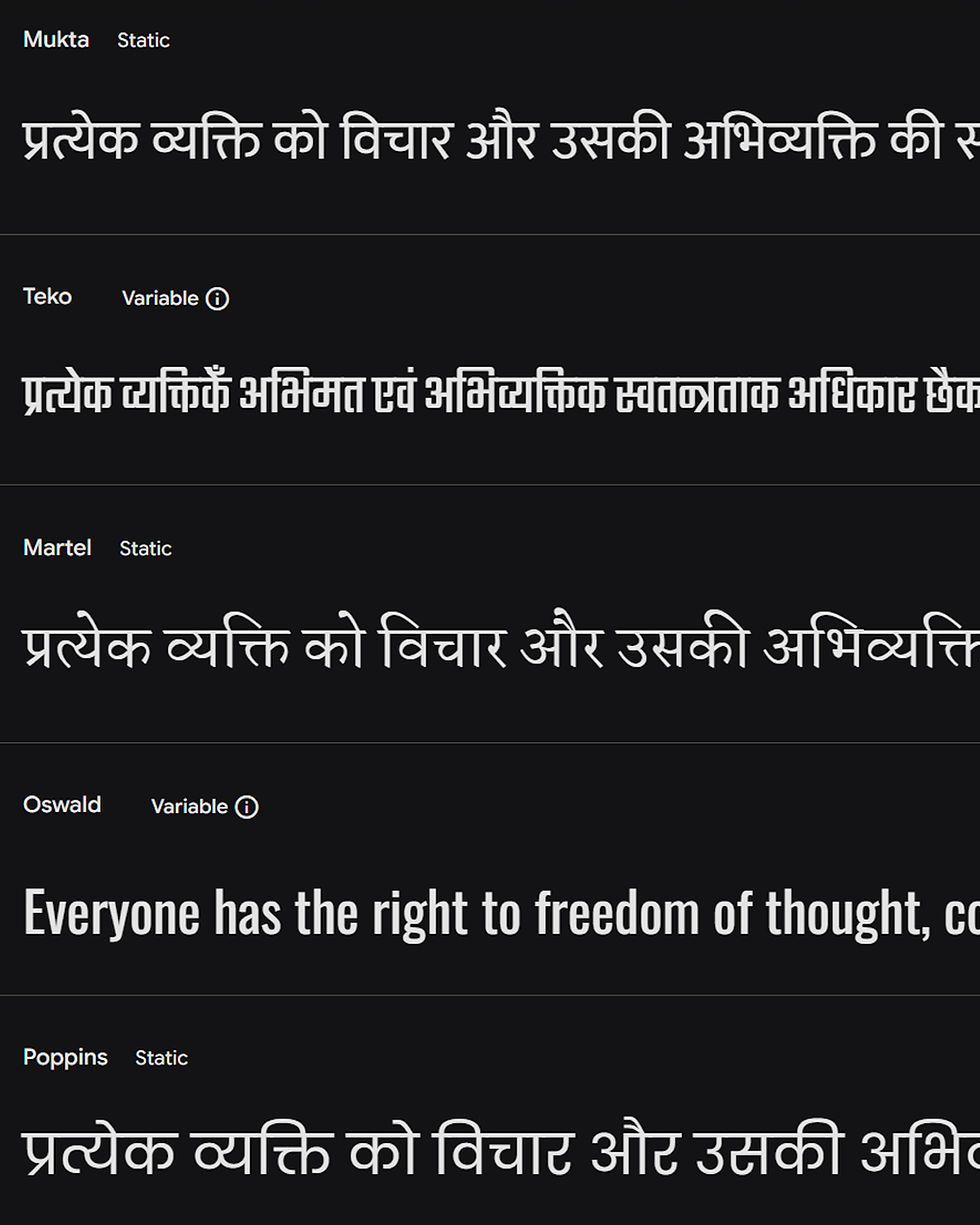
Infuse your Republic Day designs with bold pride and cultural flair using the Republic Day – Premium Fonts (Pack of 10).
This specially curated typeface collection blends patriotic energy with modern readability. Ideal for posters, banners, reels, certificates, invites, and digital tributes.
🅰️ 10 Unique Fonts Inspired by Indian Patriotism
🇮🇳 Includes bold display, serif, and sans-serif fonts with a nationalistic essence
📢 Perfect for event graphics, educational material, social posts & campaigns
Design with purpose and let your typography echo the spirit of the tricolor.
Republic Day - Premium Fonts (Pack of 10)